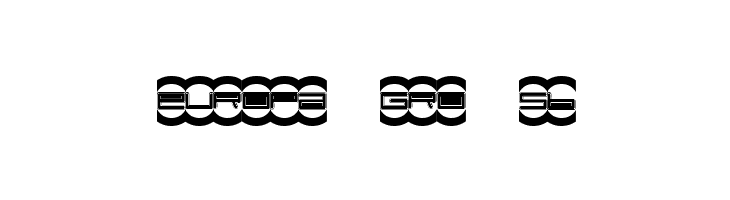
Jerefont Font
- Font: Jerefont
A bold, playful font with bubble-like outlines and rounded edges.
A bold, playful font with bubble-like outlines and hollow centers, perfect for decorative uses.